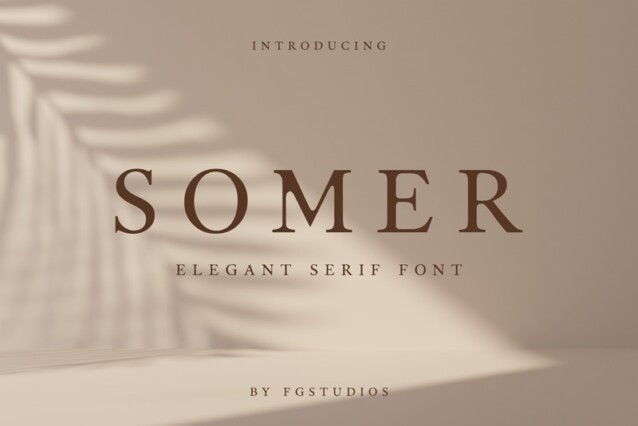
Somer Font
Somer Font is unique Font as it can be used for a variety of design styles. This font looks very simple, clean, and elegant. Specially designed by skilled hands makes this font is the perfect fit for all your big projects. Somer is perfectly suitable for creating classic design such as logos, packaging, editorial, and more.